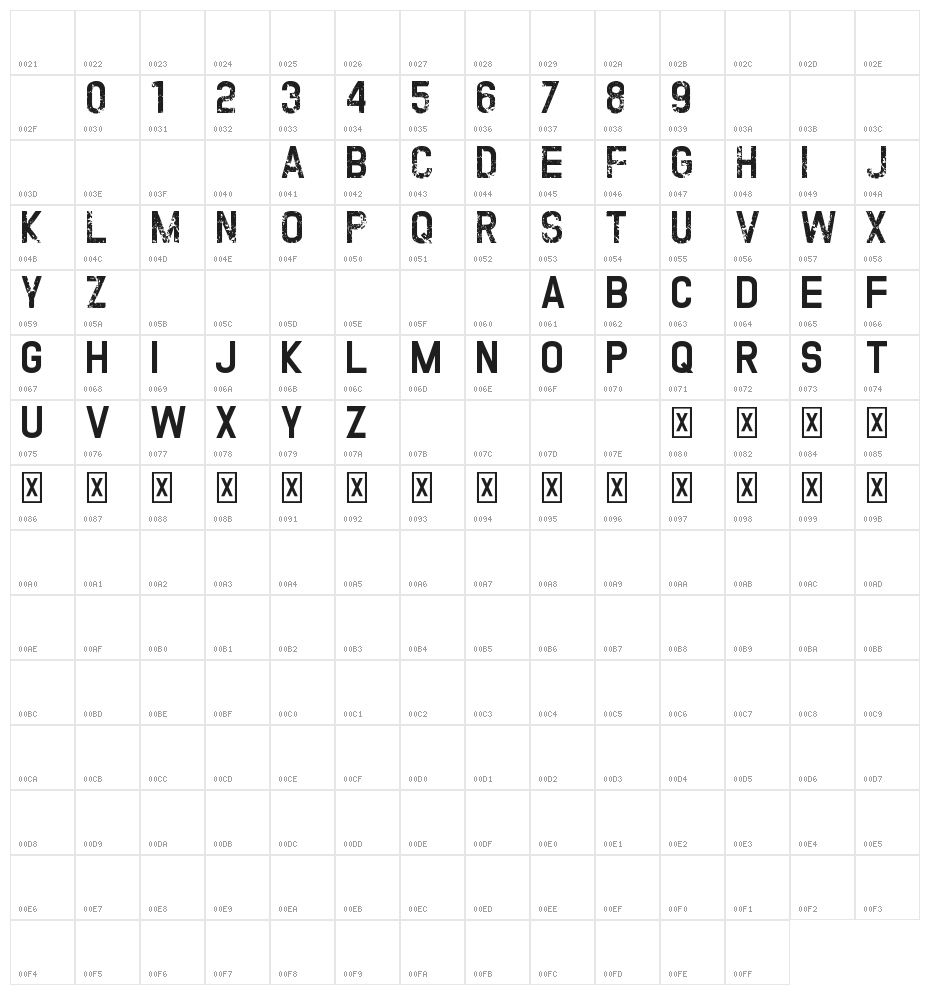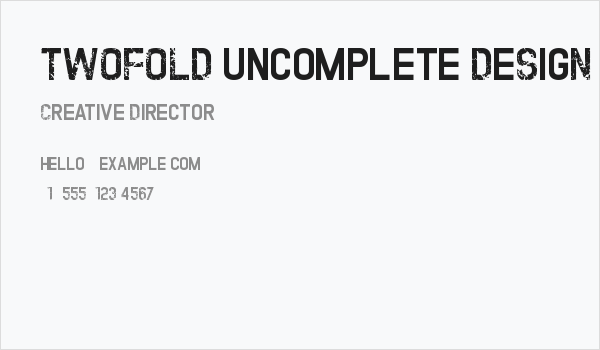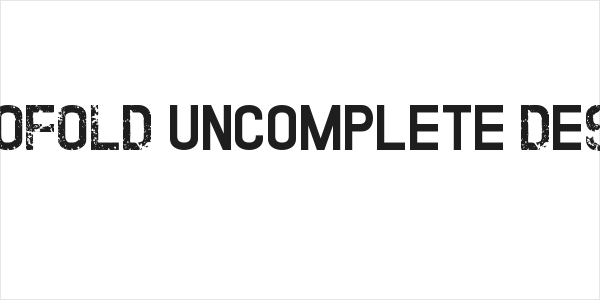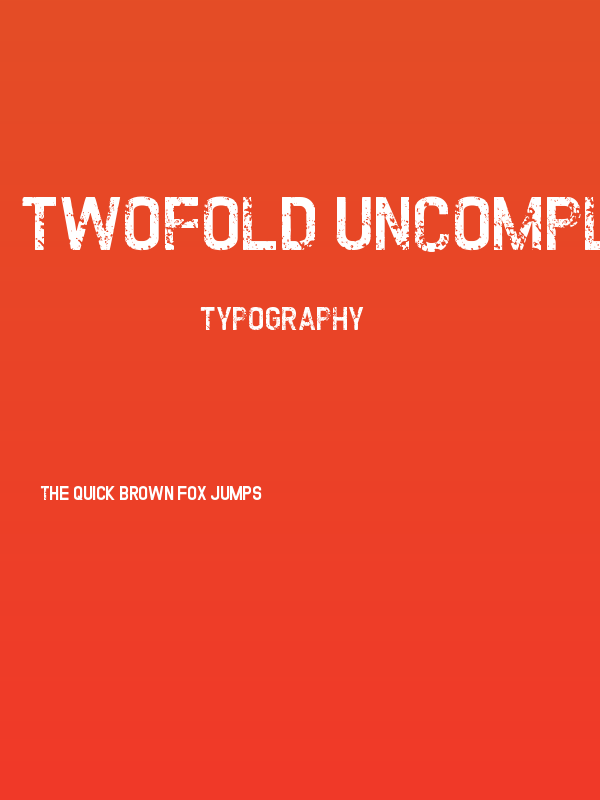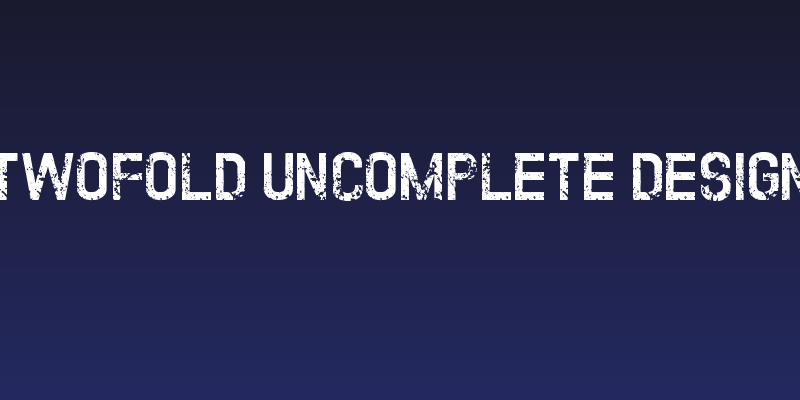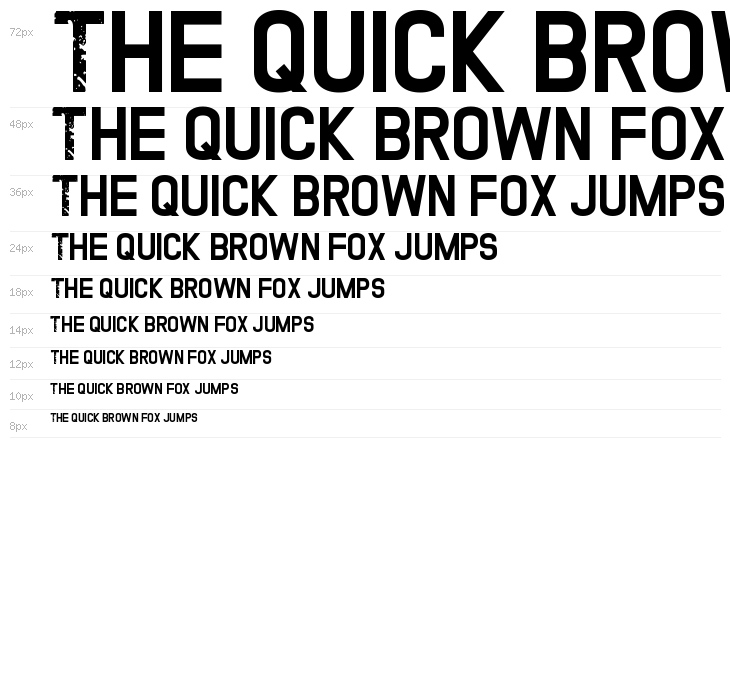
TWOFOLD uncomplete DeSigN Font
TWOFOLD uncomplete DeSigN Description
This font features a bold, distressed style with a grunge texture that gives it a rugged and worn appearance. The uppercase letters are prominently displayed with a rough, uneven edge, adding character and a sense of vintage appeal. The second set of uppercase letters is clean and bold, offering a stark contrast to the distressed version. The numerals also carry the distressed texture, maintaining consistency with the overall theme. This font is ideal for projects that require a strong, impactful visual statement, such as posters, album covers, or branding materials that aim to convey a sense of edginess or nostalgia.
| Proposed Projects | Ideal for posters, album covers, branding materials, and any design needing a strong, edgy statement. |